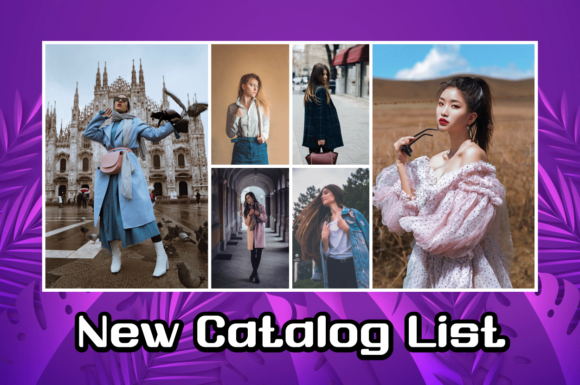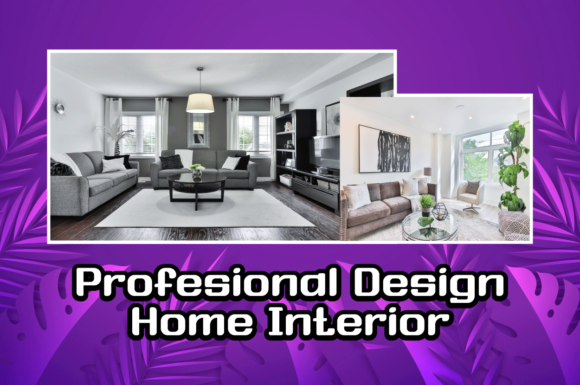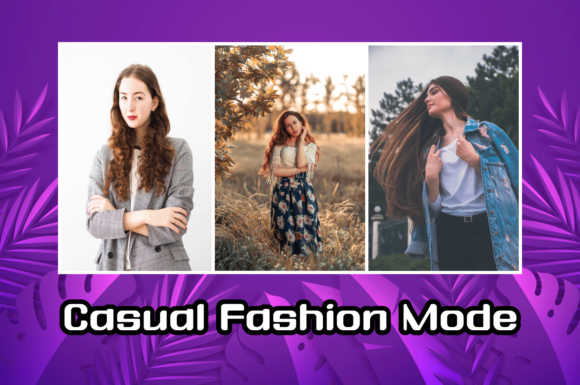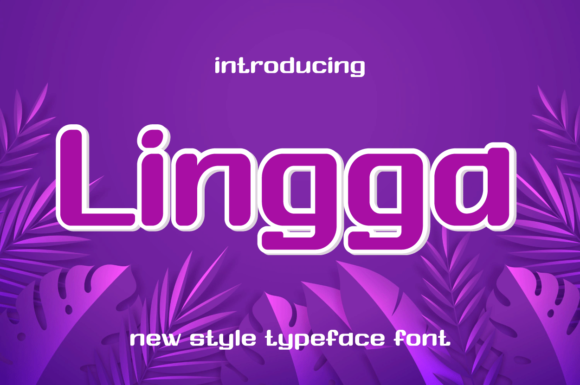
Introduction to Lingga Font
Lingga is a cool and urban styled display font.
This font is ideal for writing web designs, business cards, or pretty much anything else that requires a trendy touch .
Lingga Font offers exceptional quality and versatility, making it a valuable addition to your design toolkit. Whether you’re creating for personal projects or commercial use, Lingga Font delivers professional results.